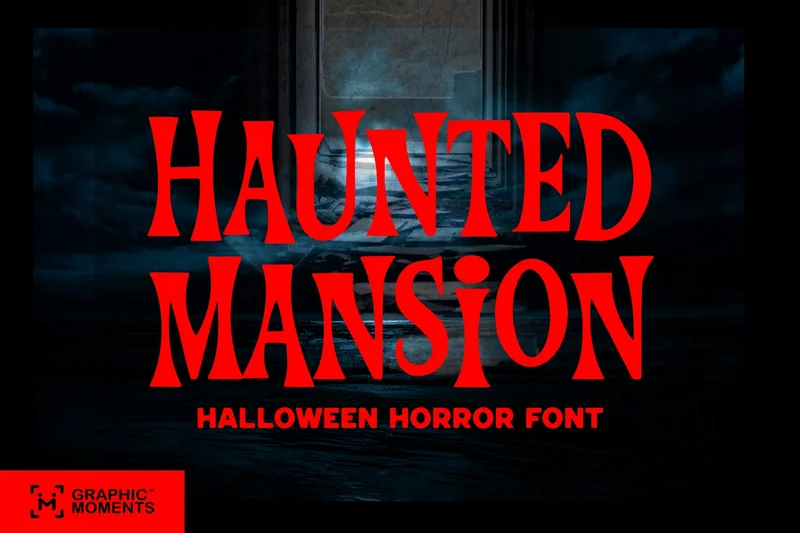
Halloween – Haunted Mansion
Haunted Mansion is a spooky Halloween font that invites you into a world of horror, mystery, and gothic terror. With its creepy curves and eerie elegance, this typeface is perfect for scary movie posters, thriller titles, witchy packaging, and any design haunted by evil and death. It captures the essence of haunted nights—where monsters roam and shadows whisper.
From horror comics to witch-themed branding, Haunted Mansion unleashes a chilling atmosphere that lingers like a ghost in the dark. Whether you’re conjuring a gothic headline, a spooky flyer, or a deathly Halloween invite, this font delivers fear with flair. Step inside Haunted Mansion… if you dare.